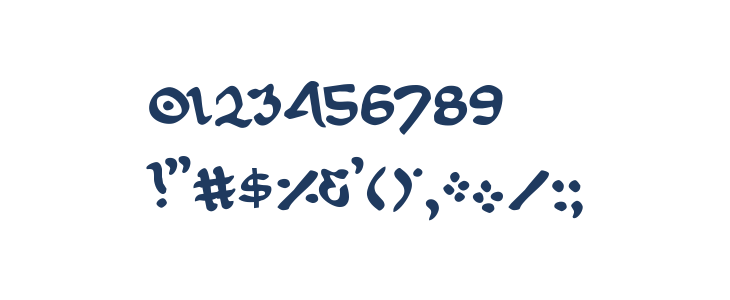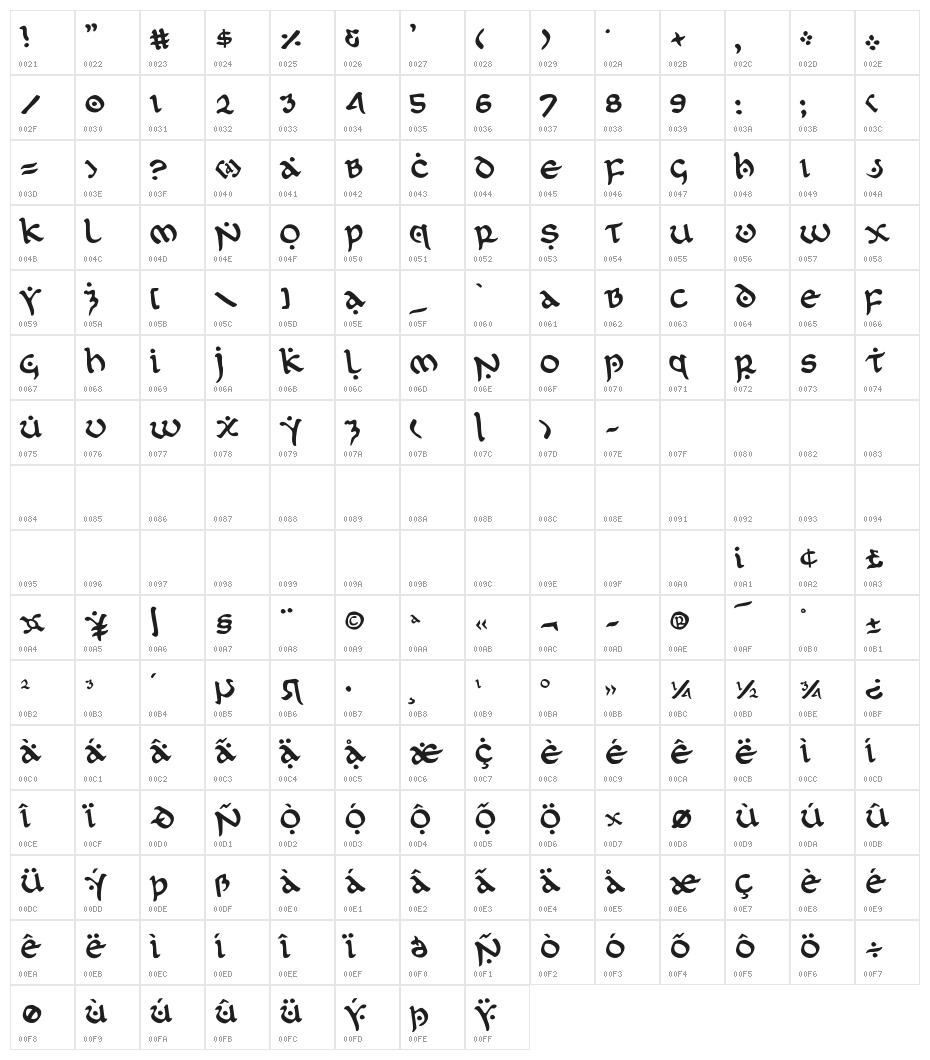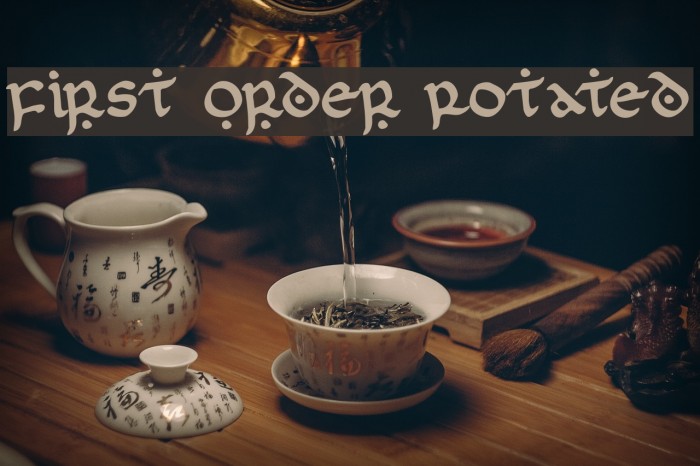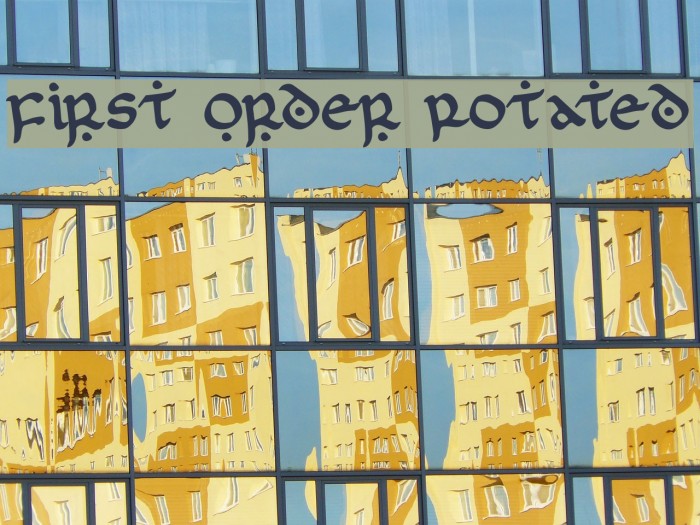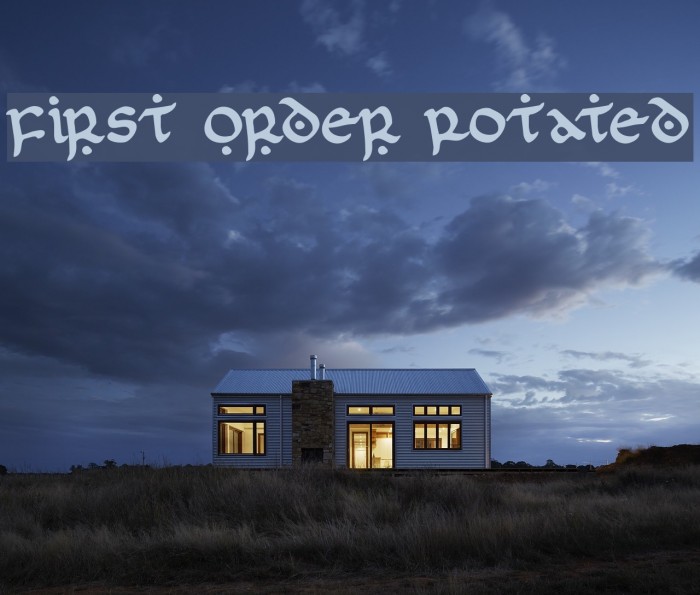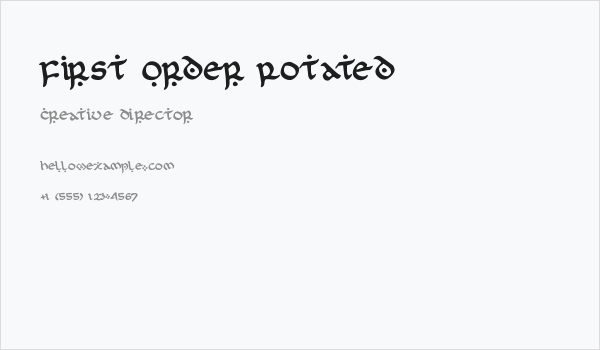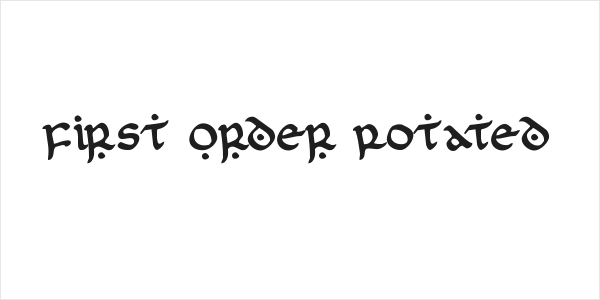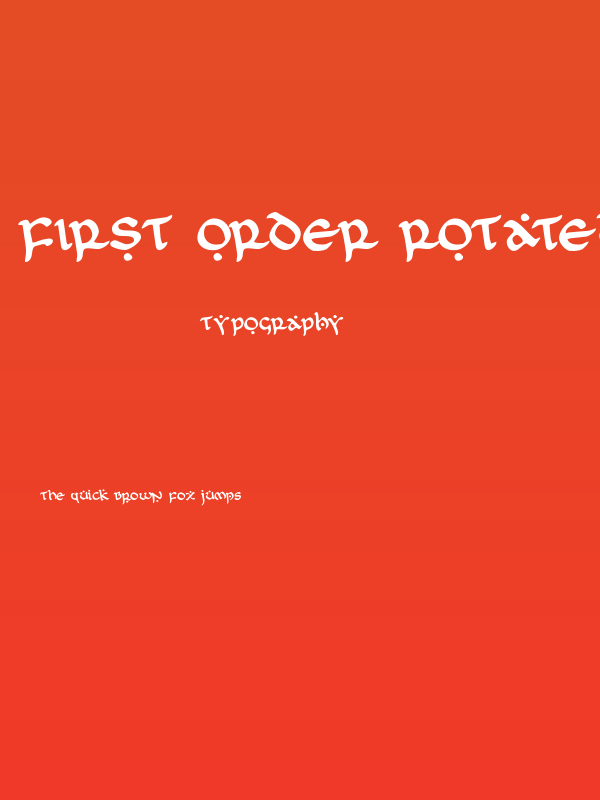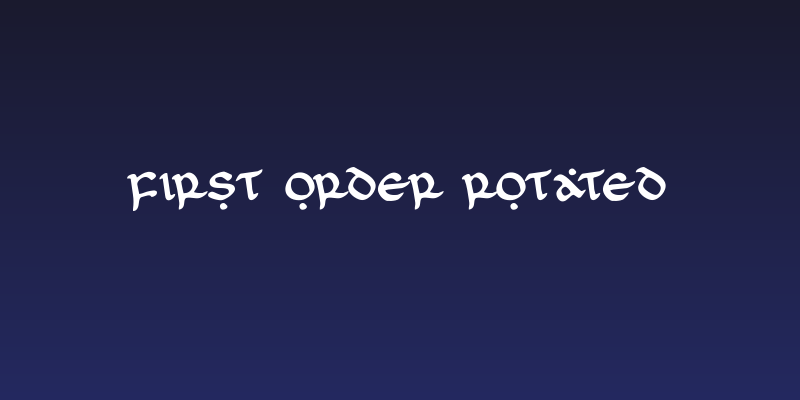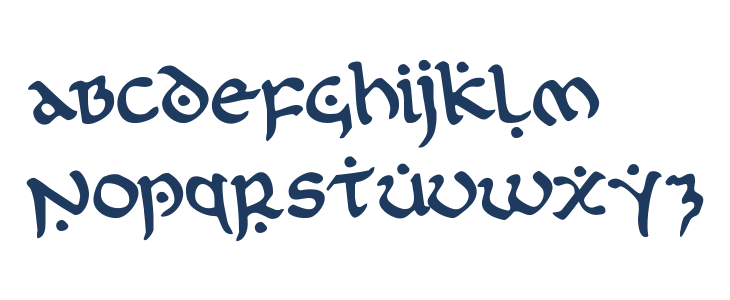
First Order Rotated Font
First Order Rotated Description
This font features a unique, decorative style with a medieval flair, characterized by its bold, flowing strokes and intricate details. The letters have a whimsical, almost calligraphic appearance, with varying thicknesses that add a dynamic quality to the text. The uppercase and lowercase letters maintain a consistent style, while the numbers and special characters complement the overall aesthetic. The font's playful yet sophisticated design makes it suitable for projects that require a touch of elegance and creativity.
| Proposed Projects | Ideal for fantasy-themed designs, invitations, posters, and branding that requires a touch of elegance and creativity. |